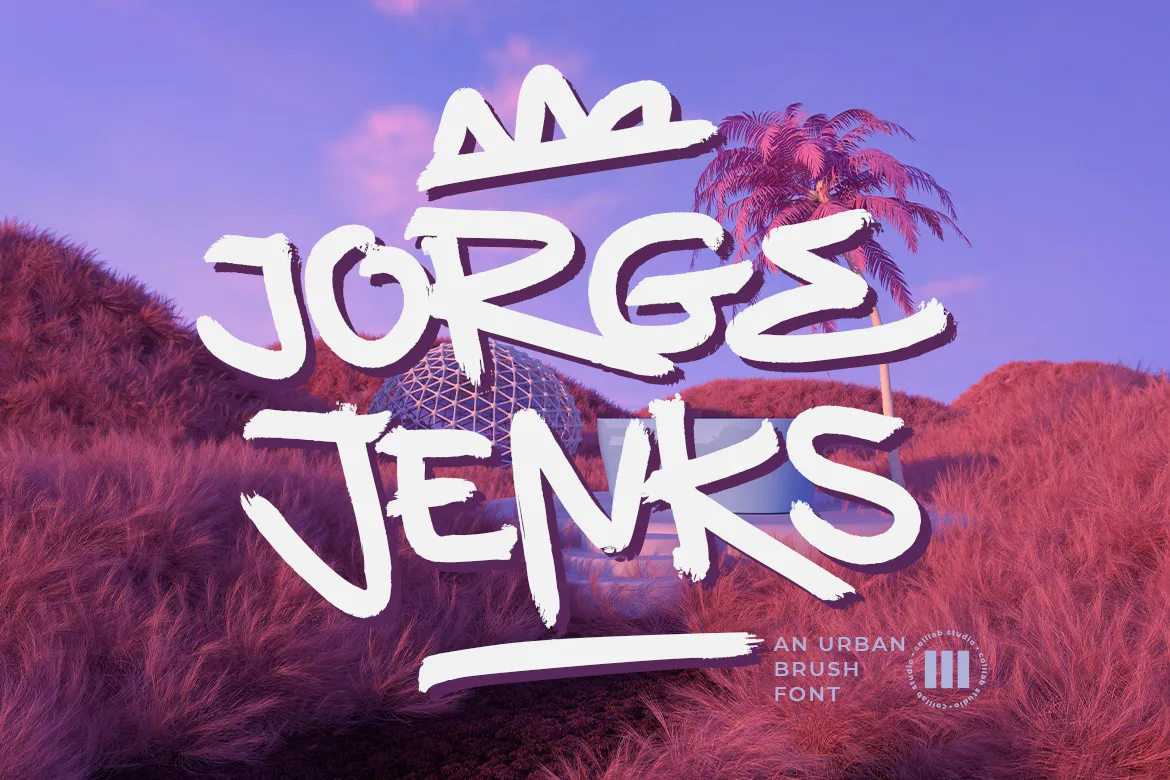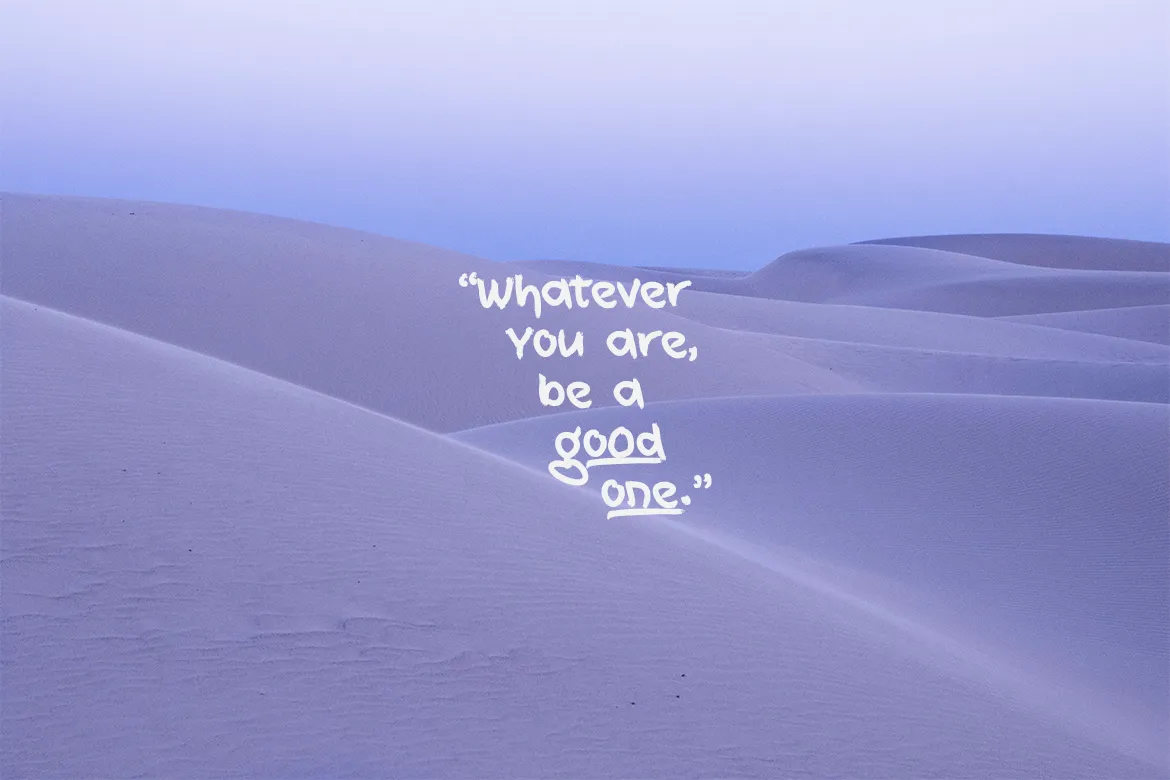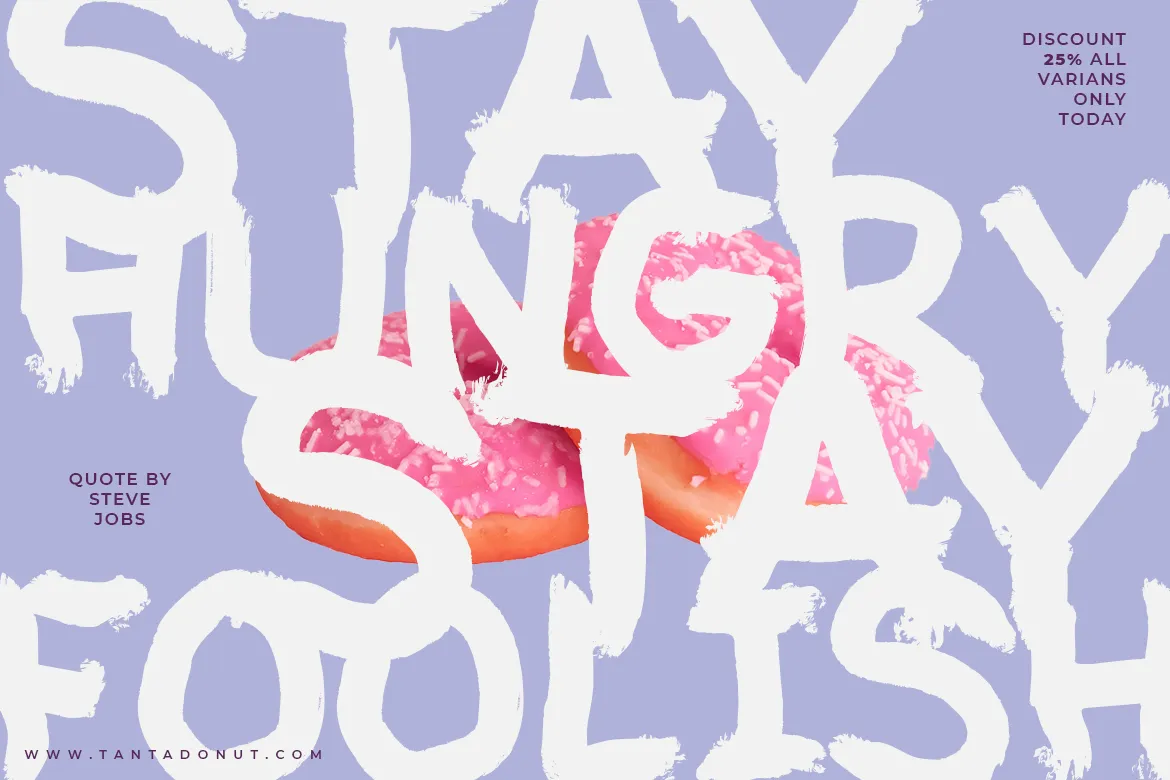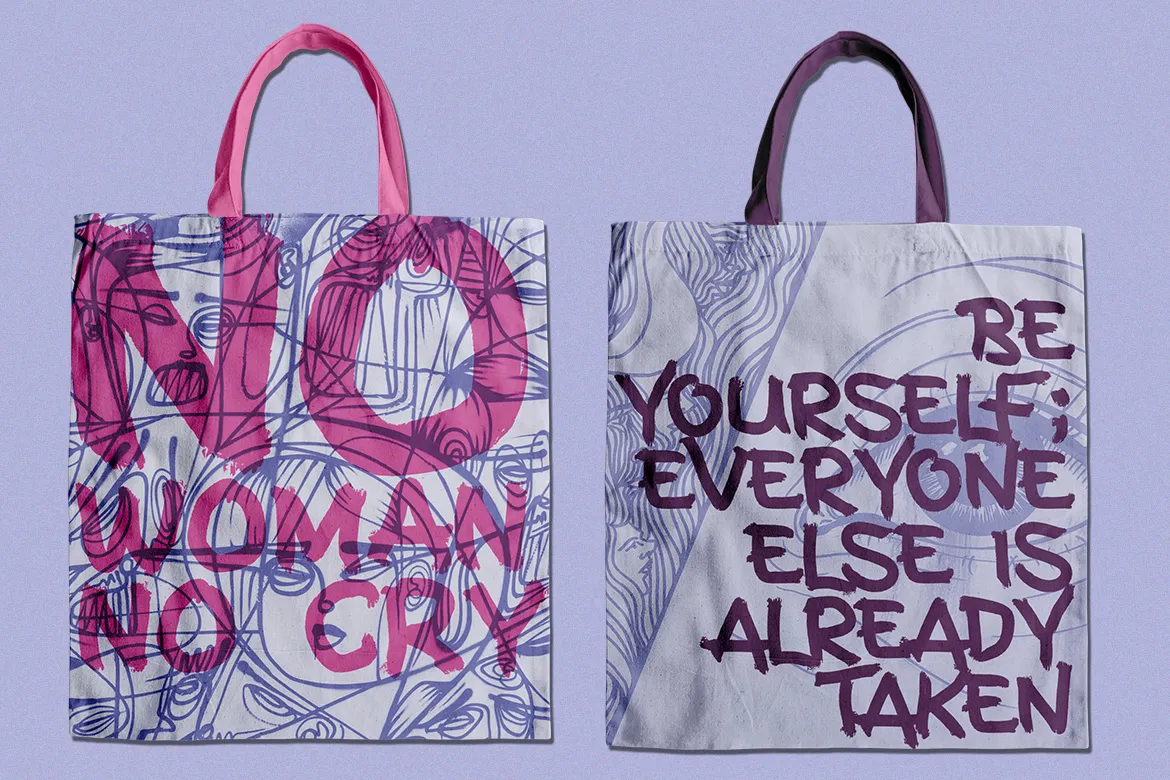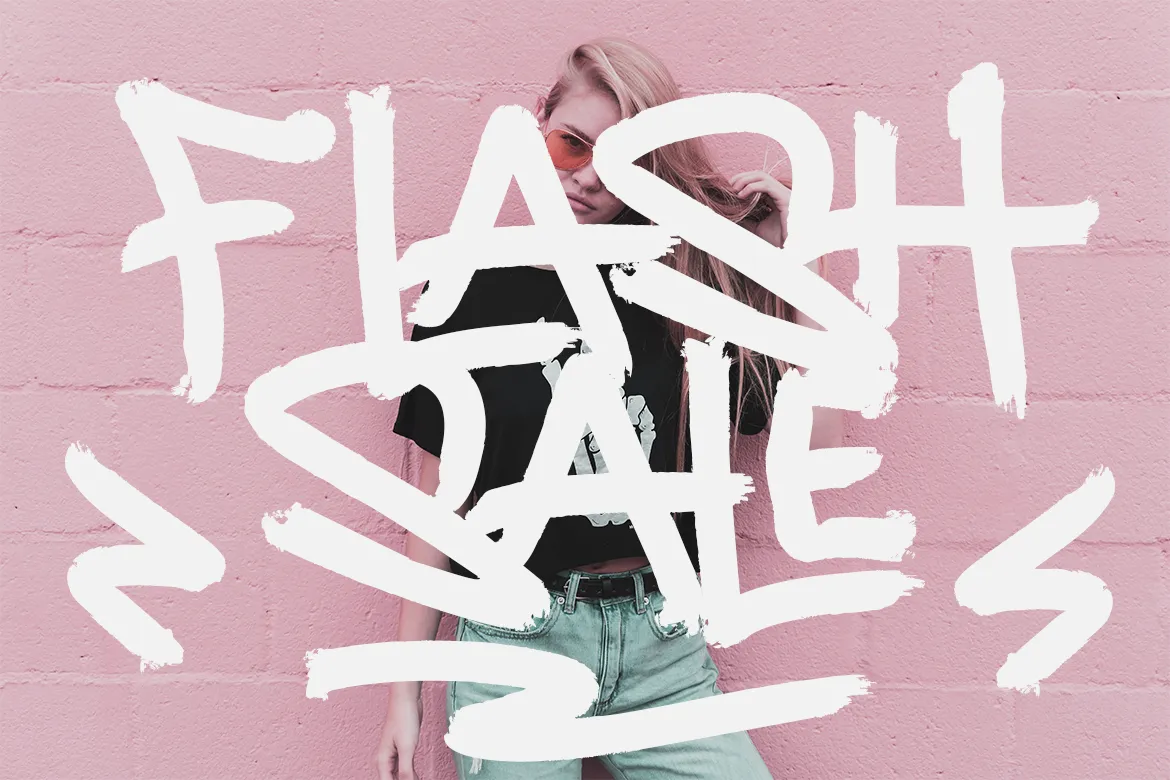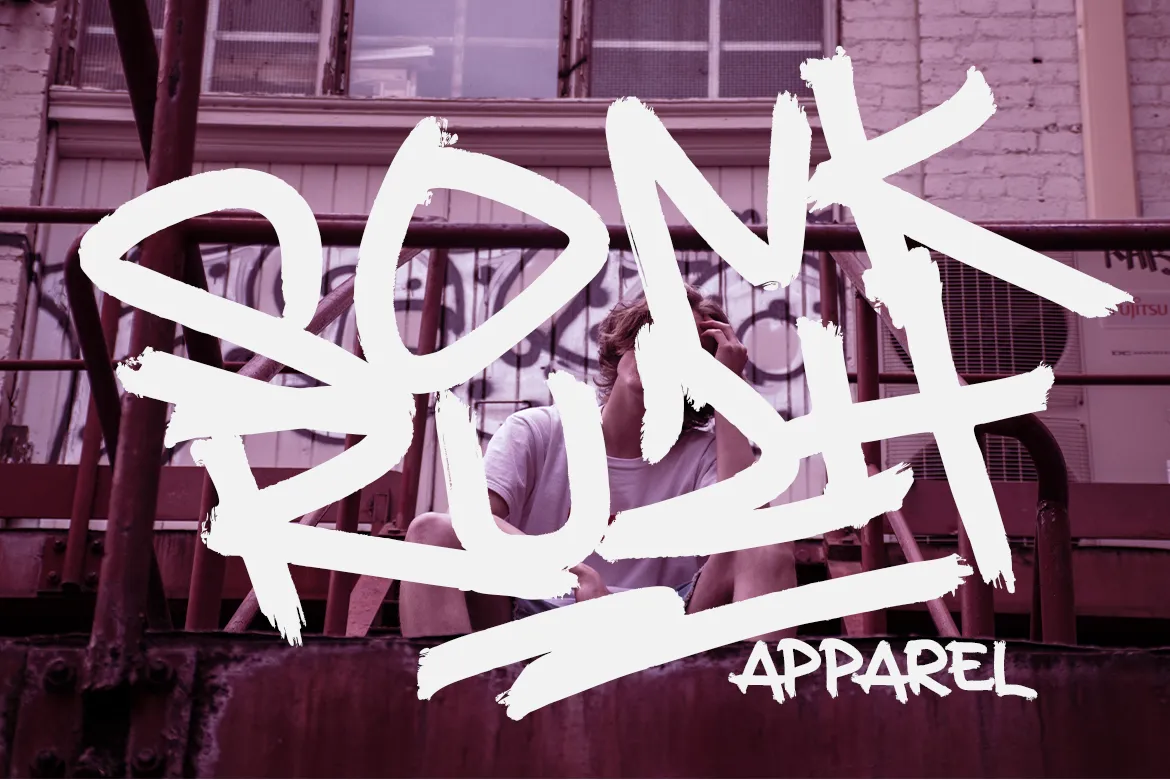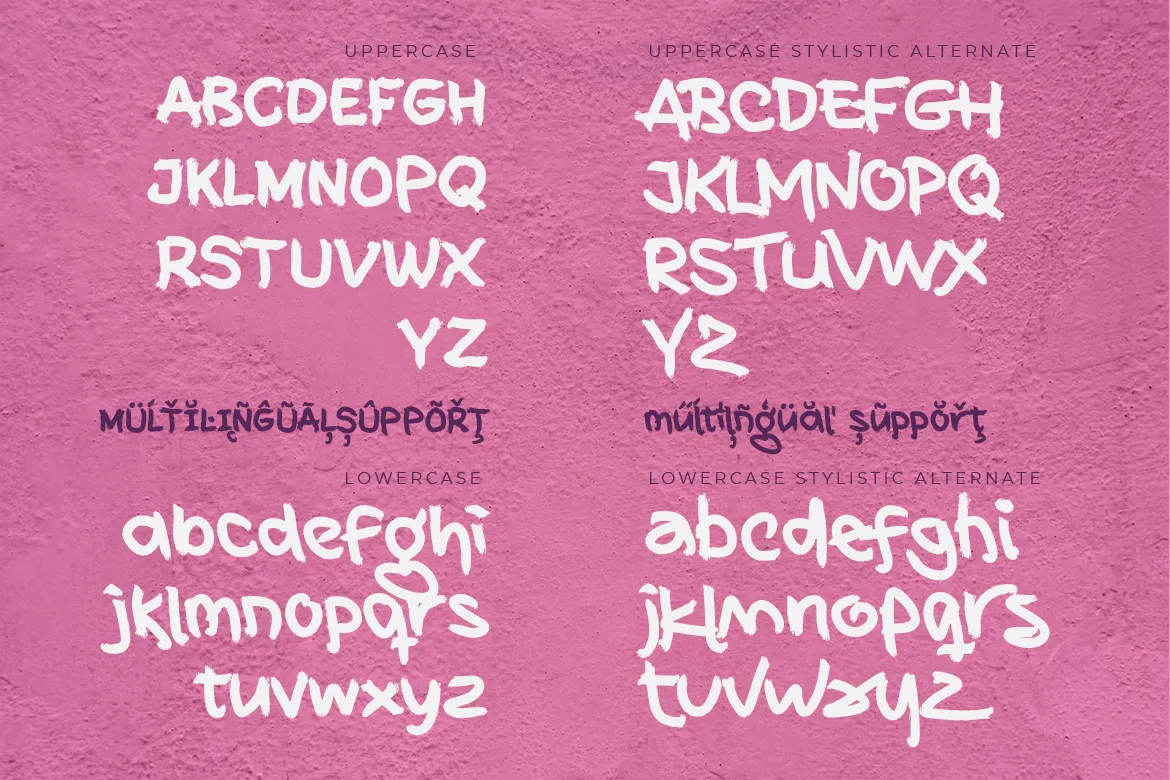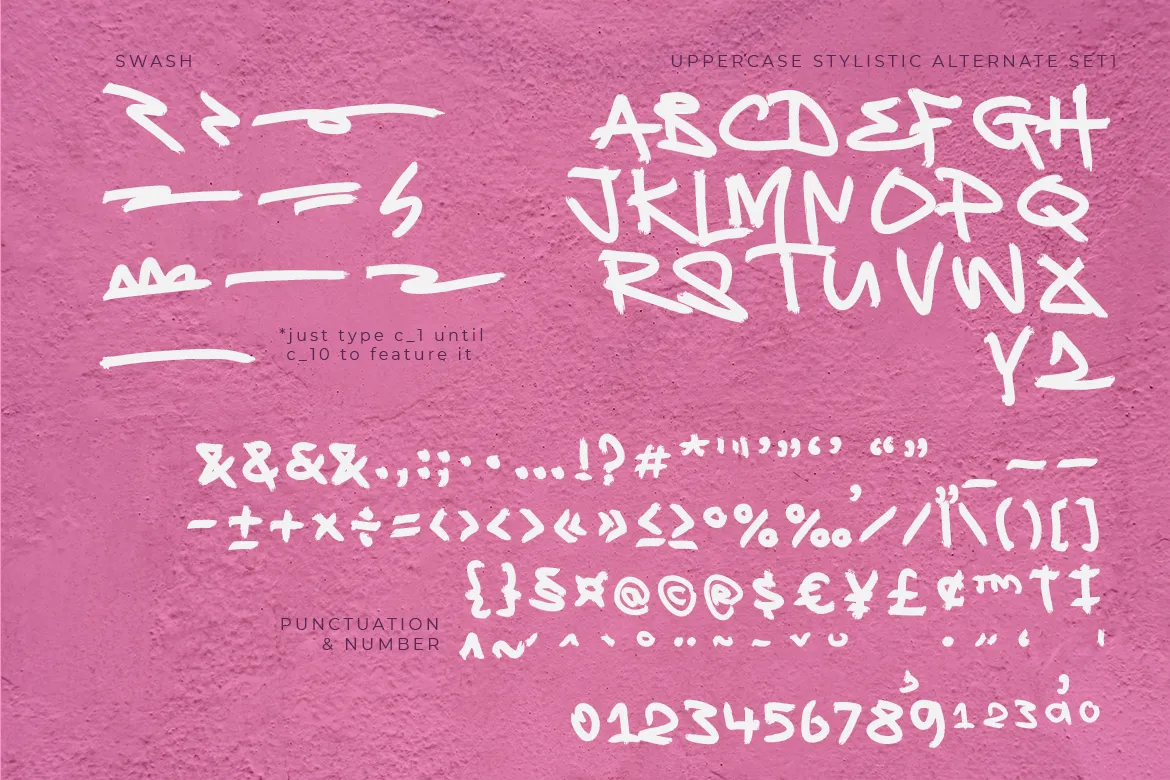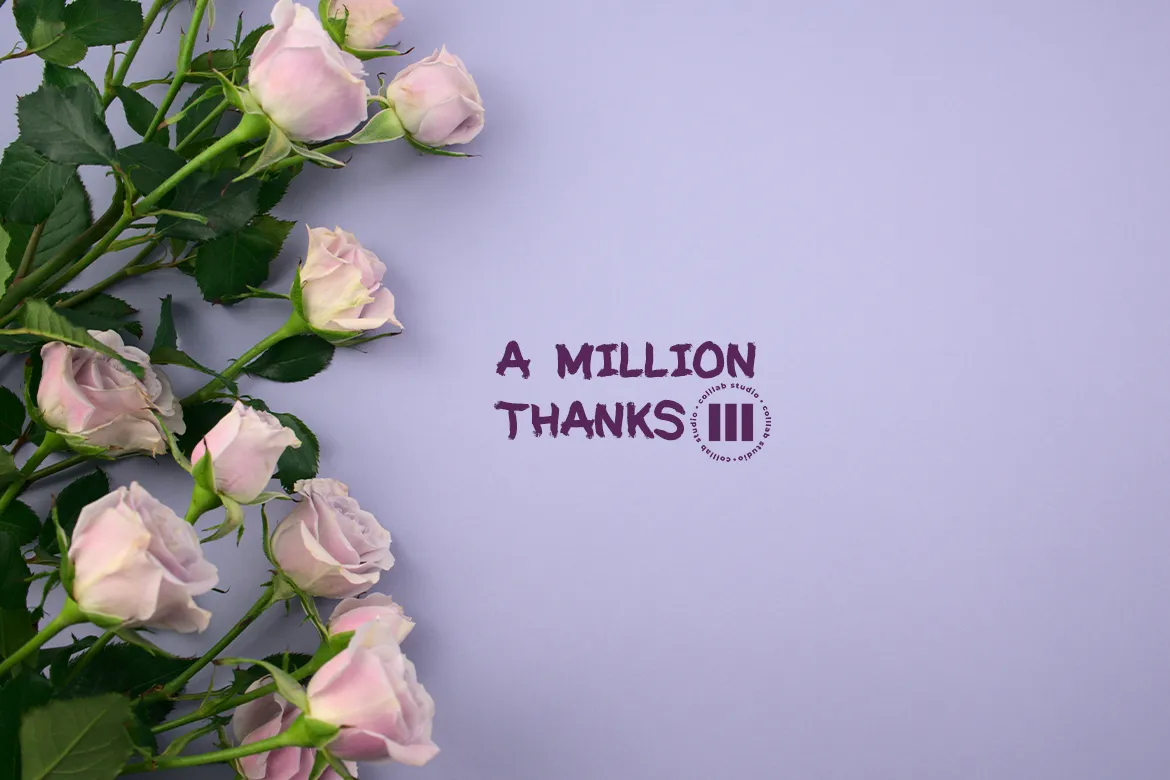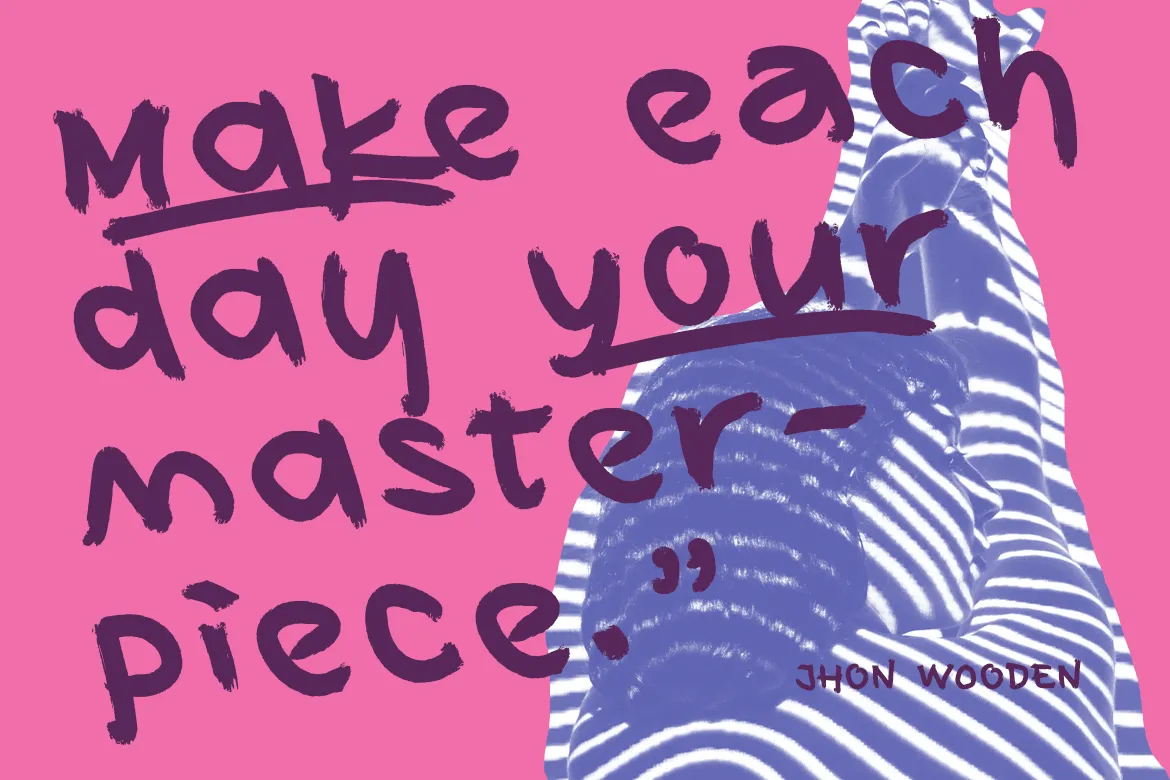
Jorge Jenks
If you are looking for a font that is perfect to make your designs look hip and fresh, go no further. Jorge Jenks has got it all. It’s simple, organic, versatile, and super modern – but not too futuristic. It will set you above the rest of the market.
Jorge Jenks is an urban brush font reflecting the urban freedom and organic flow of city life. it has strokes that are made of multiple connected nodes and his forms are unique and imperfect. This makes him a great match for both display and text typography, as well as logo design.
• Ligatures & stylistics alternates
• Swashes
• Multilanguage Support ( 76 Languages )